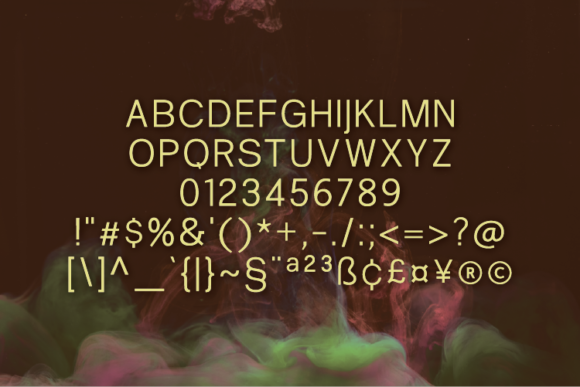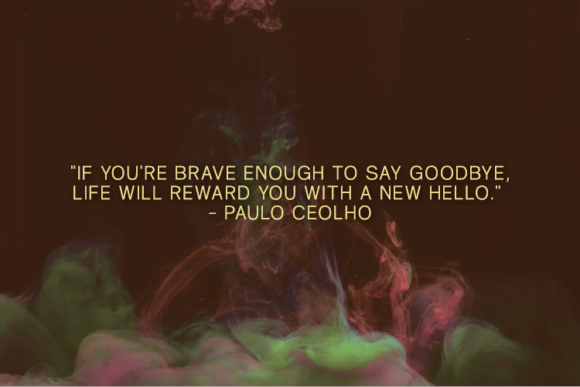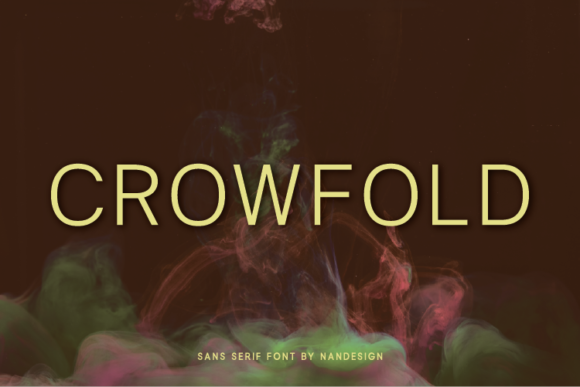
Crowfold Font: The Ultimate Sans Serif Companion for Designers and Crafters
In the world of typography, finding the perfect font that complements your project can be a daunting task. However, with Crowfold Font, your search is over. Crowfold is a simple and versatile sans serif font designed to elevate every project you’re working on. Whether you’re a designer, crafter, or DIY enthusiast, Crowfold Font is the perfect addition to your typography arsenal.
What is Crowfold Font?
Crowfold Font is a modern sans serif font that exudes simplicity and elegance. Its clean lines, rounded edges, and balanced proportions make it an excellent choice for a wide range of applications. From display fonts to headers, invitations, save the dates, weddings, and more, Crowfold Font is the perfect companion to help you achieve your design goals.
Key Features of Crowfold Font
- Simple and Versatile: Crowfold Font is designed to be versatile, making it suitable for various projects, from digital designs to print materials.
- Sans Serif: The font’s sans serif design ensures that your text remains clean and easy to read, even at smaller font sizes.
- Elegant and Modern: Crowfold Font boasts a modern aesthetic that’s perfect for designs that require a touch of sophistication.
- Highly Legible: The font’s carefully crafted letterforms ensure excellent legibility, making it ideal for body text and headings.
Use Cases for Crowfold Font
Crowfold Font is an incredibly versatile font that can be used in a variety of contexts. Here are some popular use cases:
- Display Fonts: Use Crowfold Font as a display font to create eye-catching headlines, titles, and captions.
- Invitations and Save the Dates: Add a touch of elegance to your invitations and save the dates with Crowfold Font.
- Weddings and Events: Crowfold Font is perfect for wedding stationery, event branding, and signage.
- Digital Designs: Use Crowfold Font in your digital designs, such as social media graphics, presentations, and website headers.
- Print Materials: Crowfold Font is suitable for print materials, including brochures, flyers, and posters.
Why Choose Crowfold Font?
With so many fonts available, why choose Crowfold Font? Here are a few compelling reasons:
- Unique yet Versatile: Crowfold Font offers a unique aesthetic that’s versatile enough to work with various design styles.
- Easy to Read: The font’s high legibility ensures that your text is easy to read, even at smaller font sizes.
- Time-Saving: With Crowfold Font, you can save time searching for the perfect font, allowing you to focus on the creative aspects of your project.
Tips for Using Crowfold Font
To get the most out of Crowfold Font, here are some valuable tips:
- Experiment with Font Sizes: Crowfold Font looks great at various font sizes, so experiment to find the perfect size for your project.
- Pair with Other Fonts: Try pairing Crowfold Font with other fonts to create a unique and visually appealing typography combination.
- Adjust Letter Spacing: Adjusting the letter spacing can help you achieve the perfect balance between text and design.
In conclusion, Crowfold Font is an exceptional sans serif font that’s perfect for designers, crafters, and DIY enthusiasts. Its simplicity, versatility, and elegance make it an excellent addition to any project. With its wide range of use cases, ease of use, and valuable features, Crowfold Font is sure to become your go-to font for all your design needs.